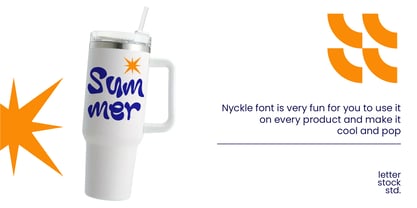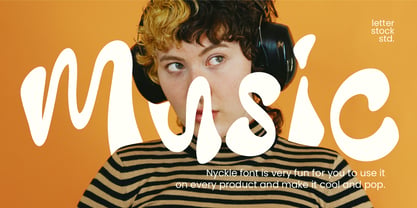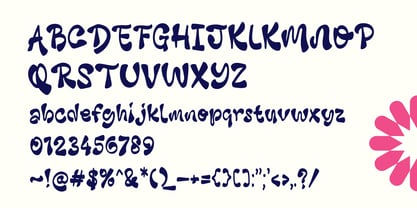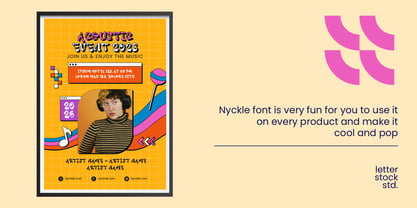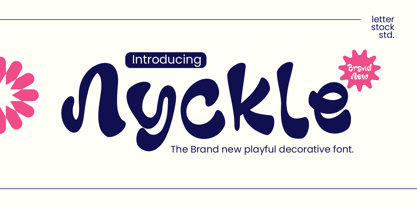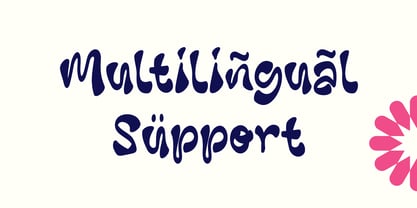
Nyckle
by LetterStock
The Nyckle Font Family was designed by Studio LetterStock and published by LetterStock. Nyckle contains 1 styles. More about this family
Nyckle – Playful Decorative Font Nyckle is a playful decorative font designed to bring joy, personality, and charm into your creative projects. With its unique shapes, quirky curves, and cheerful character, Nyckle instantly adds a fun and friendly vibe to any design. This font is perfect for designers who want to create eye-catching visuals that feel lively, expressive, and full of personality. Nyckle works beautifully for children's designs, playful branding, posters, packaging, social media graphics, and creative headlines. Whether you're designing a kids’ book cover, a fun logo, a cheerful poster, or colorful merchandise, Nyckle helps your typography stand out while keeping the tone warm and approachable. Perfect for: Kids book covers Playful logos & branding Posters & headlines Packaging design Social media graphics Stickers & merchandise Party invitations Creative craft projects Nyckle is designed to be bold, friendly, and memorable — a font that brings a smile to your audience and adds a touch of playful creativity to every design. Let Nyckle make your designs more joyful, expressive, and unforgettable.
Designers: Studio LetterStock
Foundry: LetterStock
Nyckle